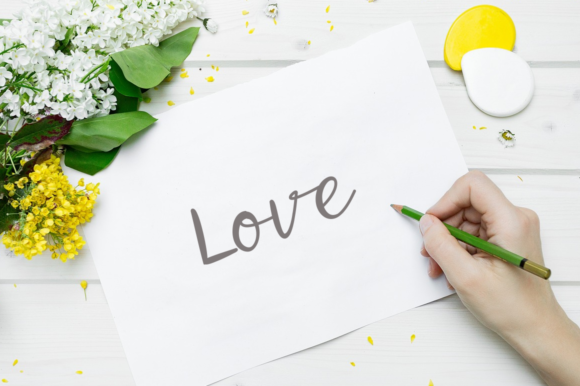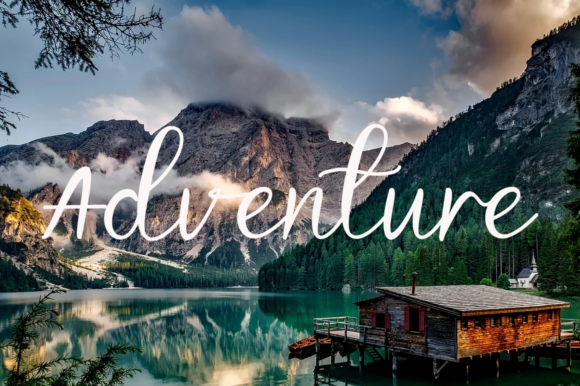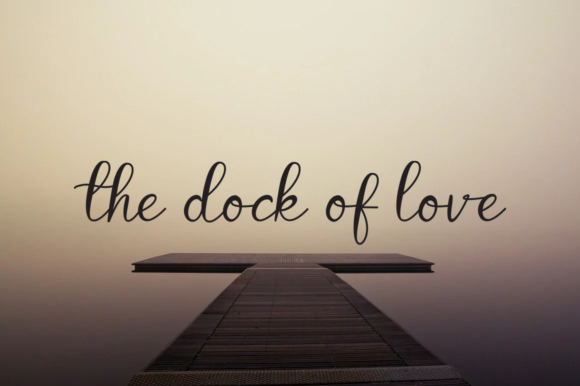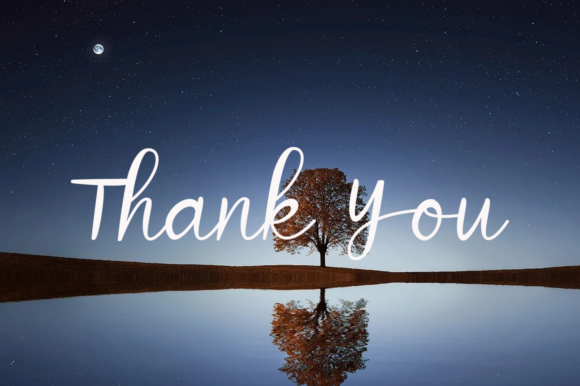
Introduction to Sidney Font
Do you remember that moment when you finally found the perfect font to bring your creative project to life? For many designers, it’s a moment of pure joy and excitement. And today, we’re thrilled to introduce you to one such font that’s sure to become your new favorite – the enchanting Sidney Font.
This dainty, thin, and cursive handwritten font is a game-changer for any design project. Its gentle curves and delicate lines add a touch of romance and whimsy, making it perfect for everything from wedding invitations to blog posts with a transparent background. Whether you’re a seasoned designer or just starting out, the Sidney Font is a valuable addition to your design resource library.
Sidney Font Key Features
- High-quality, professional design for creative projects and presentations
- Includes a comprehensive character set, covering a wide range of languages and characters
- Designed to be highly legible, even at small font sizes, making it ideal for body text and headings
Honest Review: Sidney Font
As a designer, I’m always on the lookout for high-quality design resources that can elevate my creative projects. Recently, I had the chance to try out the Sidney Font, and I’m excited to share my thoughts on this versatile font.
- Beautifully crafted characters with a unique, elegant touch
- Excellent legibility, even at smaller font sizes
- Supports a wide range of languages, making it a great choice for international projects
Any limitations ⚠️
- Limited font weights and styles available (only a few options)
- Not ideal for bold, eye-catching headlines (best suited for body text)
Overall, I’m impressed with the Sidney Font’s performance and aesthetic. While it may not be the most comprehensive font suite, its elegant design and transparent background make it a great choice for designers looking to add a touch of sophistication to their creative projects.
Sidney Font
Tips for Getting the Most Out of Sidney Font
For the best results, use Sidney Font on a transparent background to make your design stand out. You can also experiment with different font sizes and styles to create a unique look. Consider using Sidney Font in conjunction with other design resources, such as images and graphics, to add depth and interest to your project.
Sidney Font is a versatile design resource that can be used in a variety of creative projects, including business cards, brochures, and websites. Its high-quality design and transparent background make it an ideal choice for designers looking to create professional-looking designs.